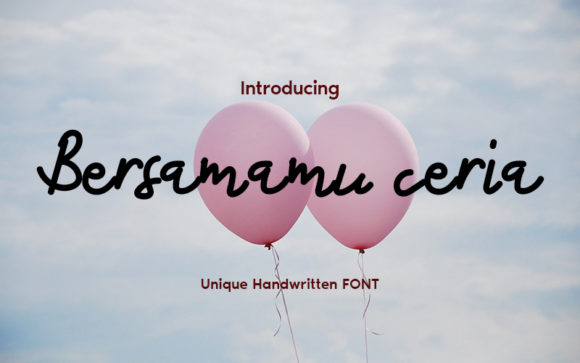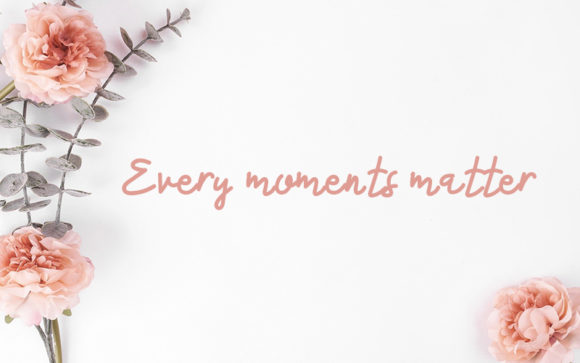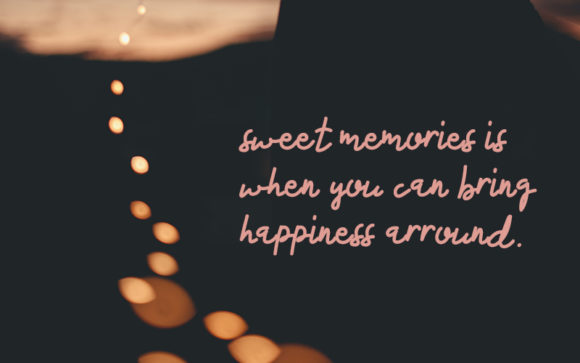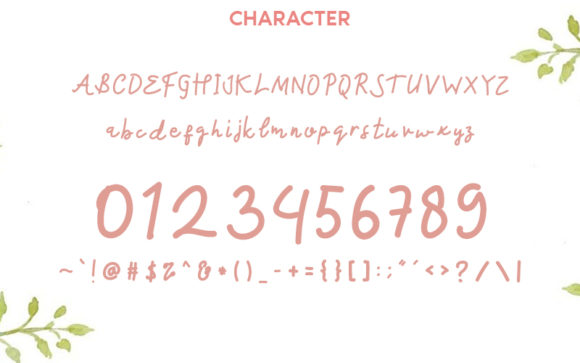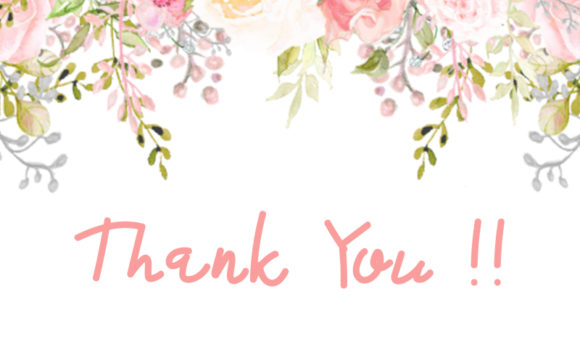
Bersamamu Ceria Font
About Bersamamu Ceria Font
Bersamamu Ceria feels fun and quirky. Use this gorgeous and unique handwritten font to bring any DIY project to life!